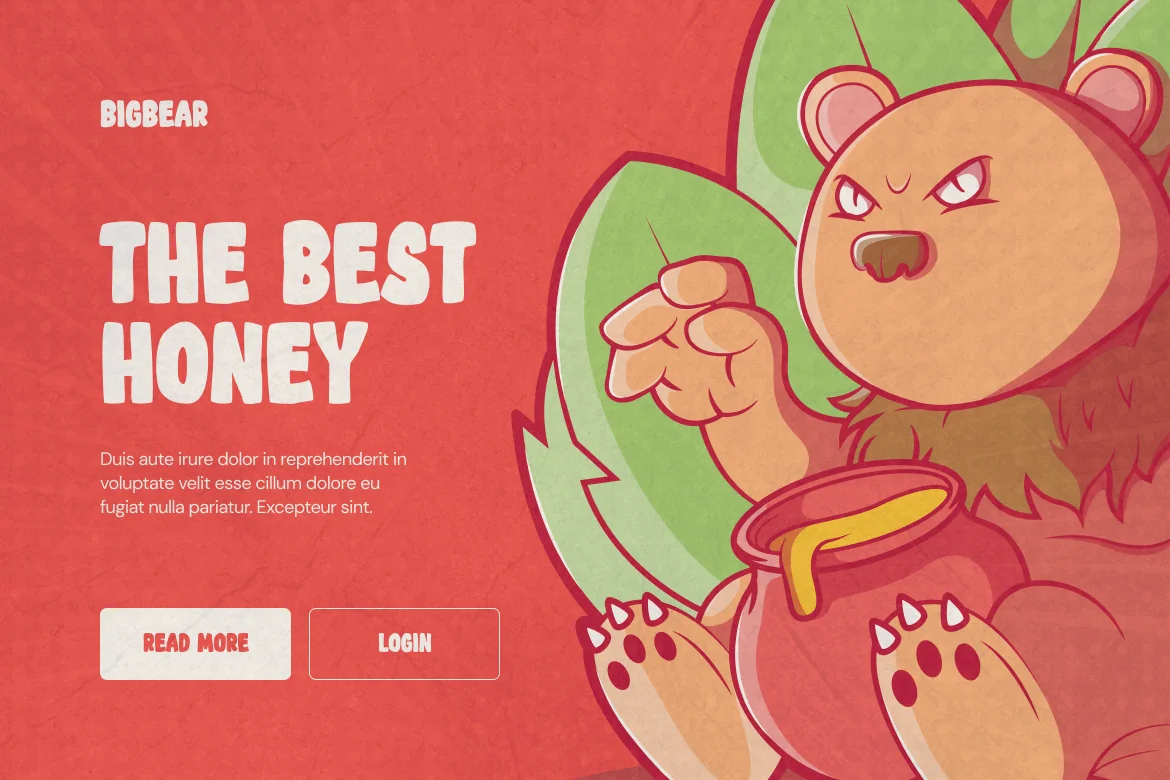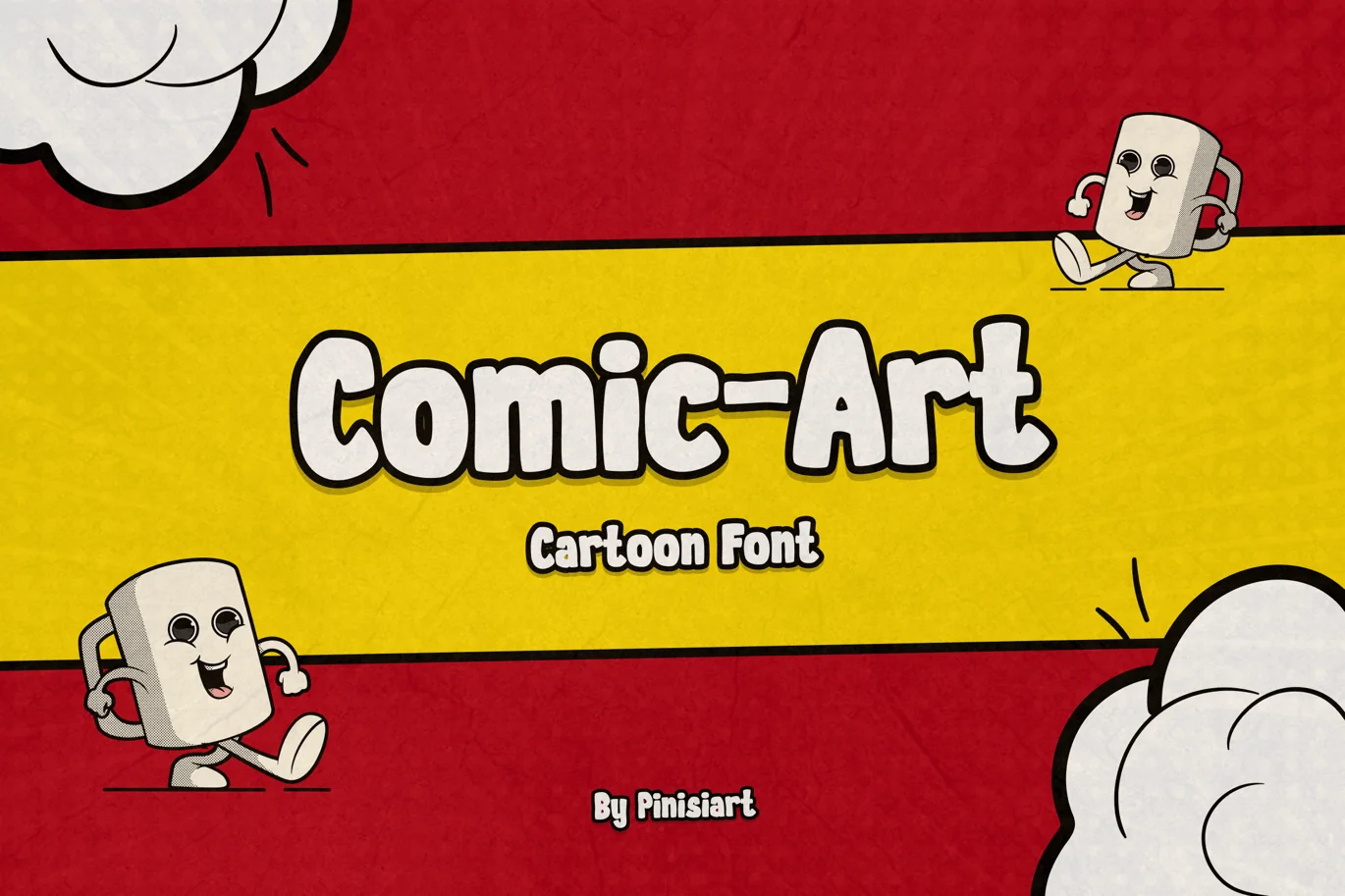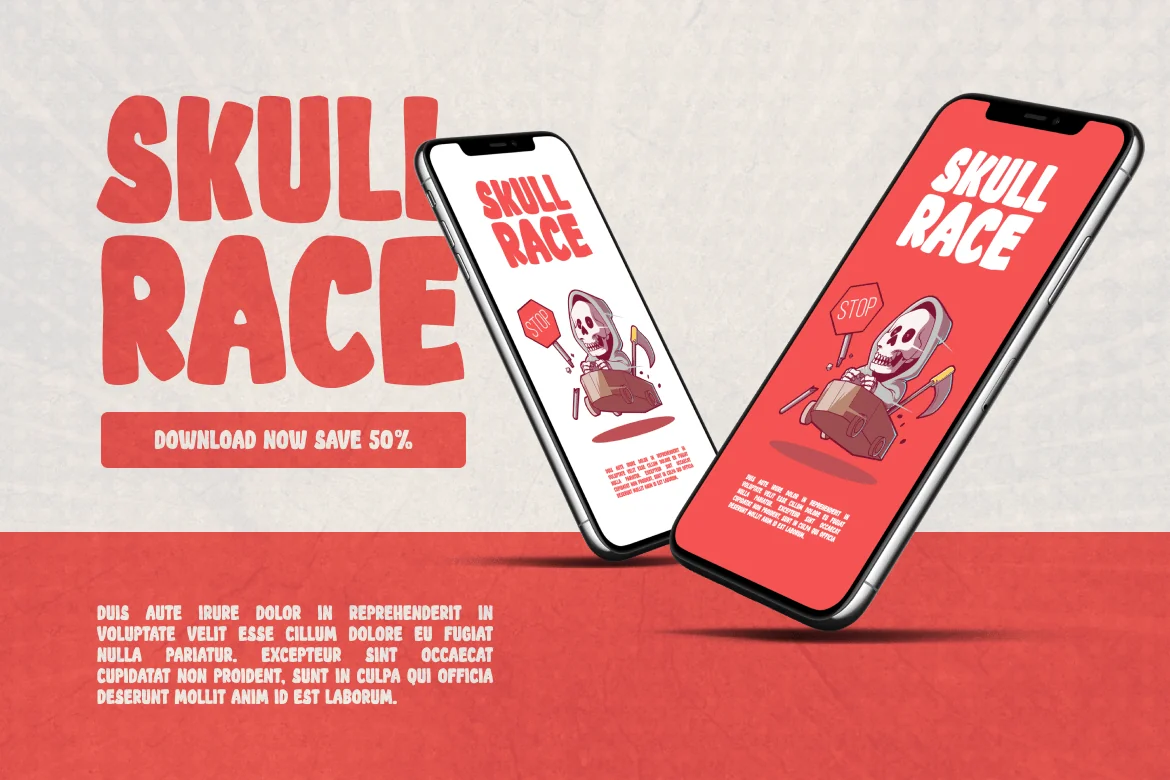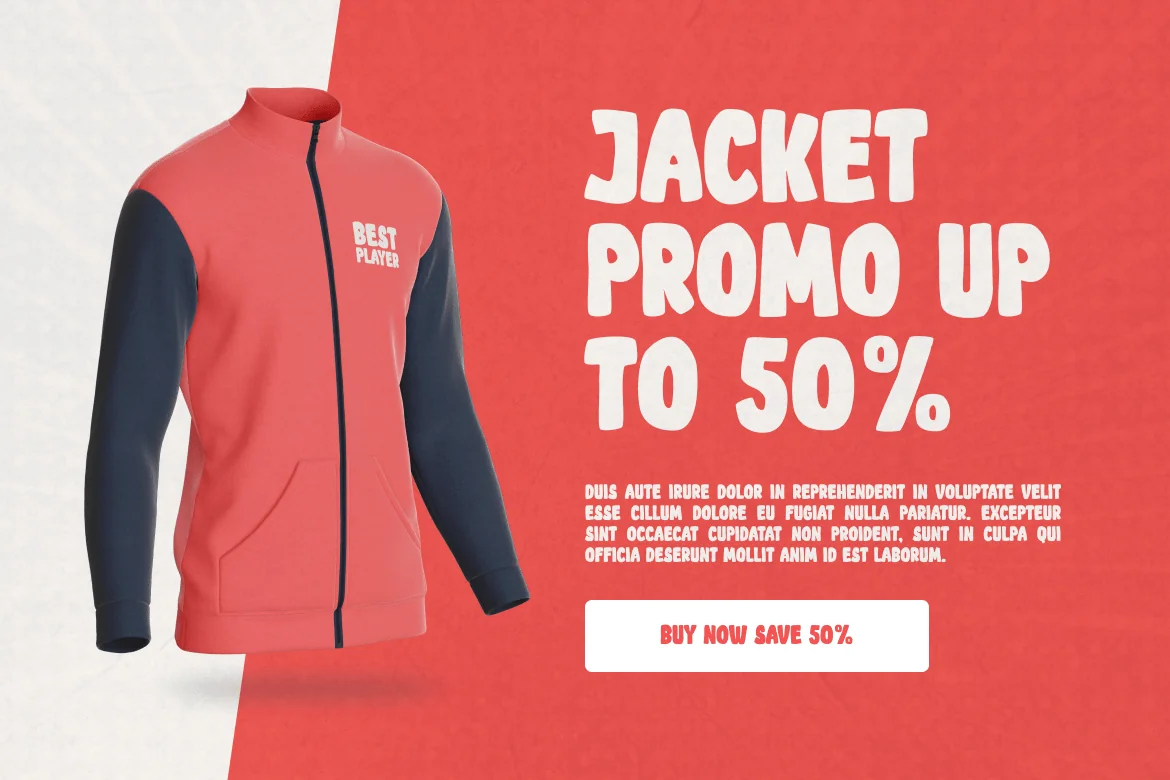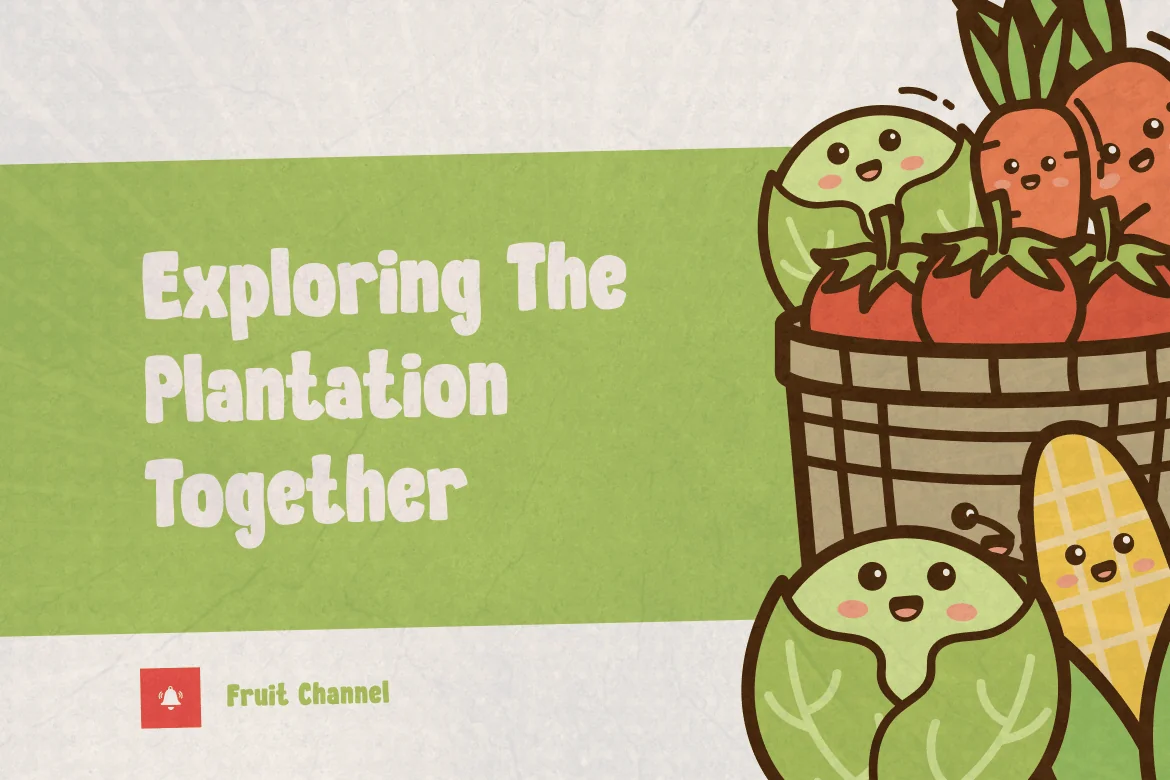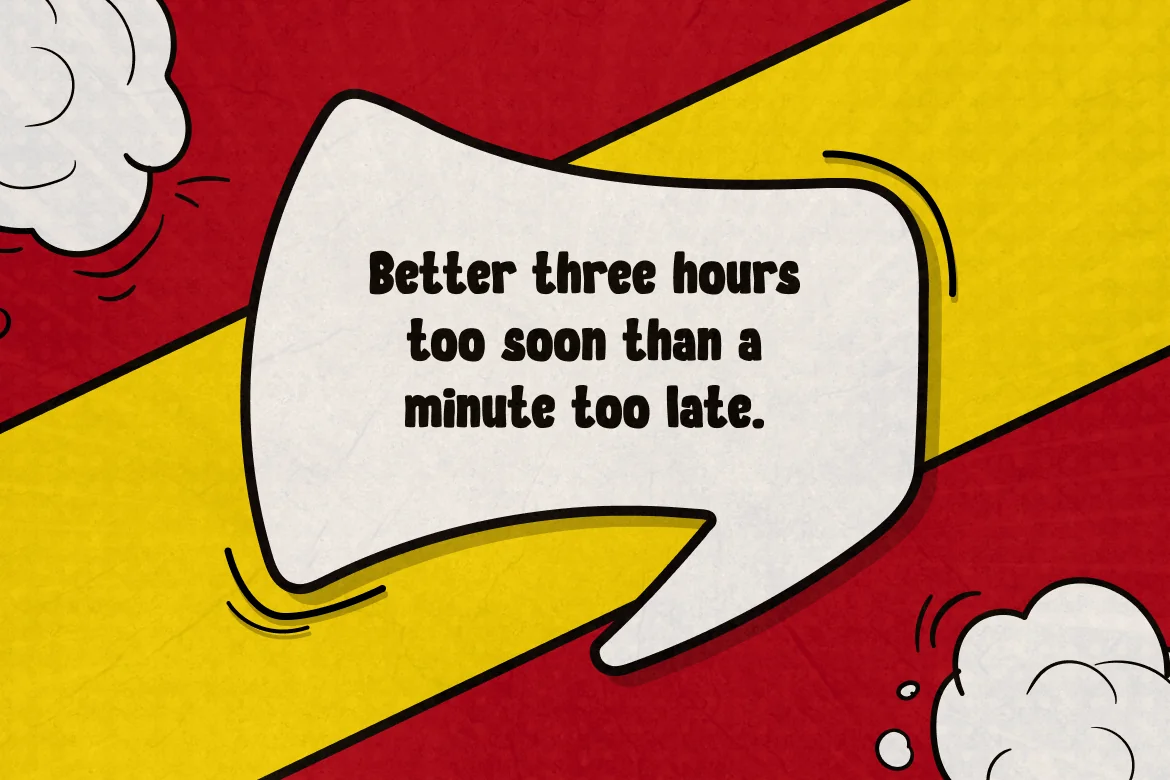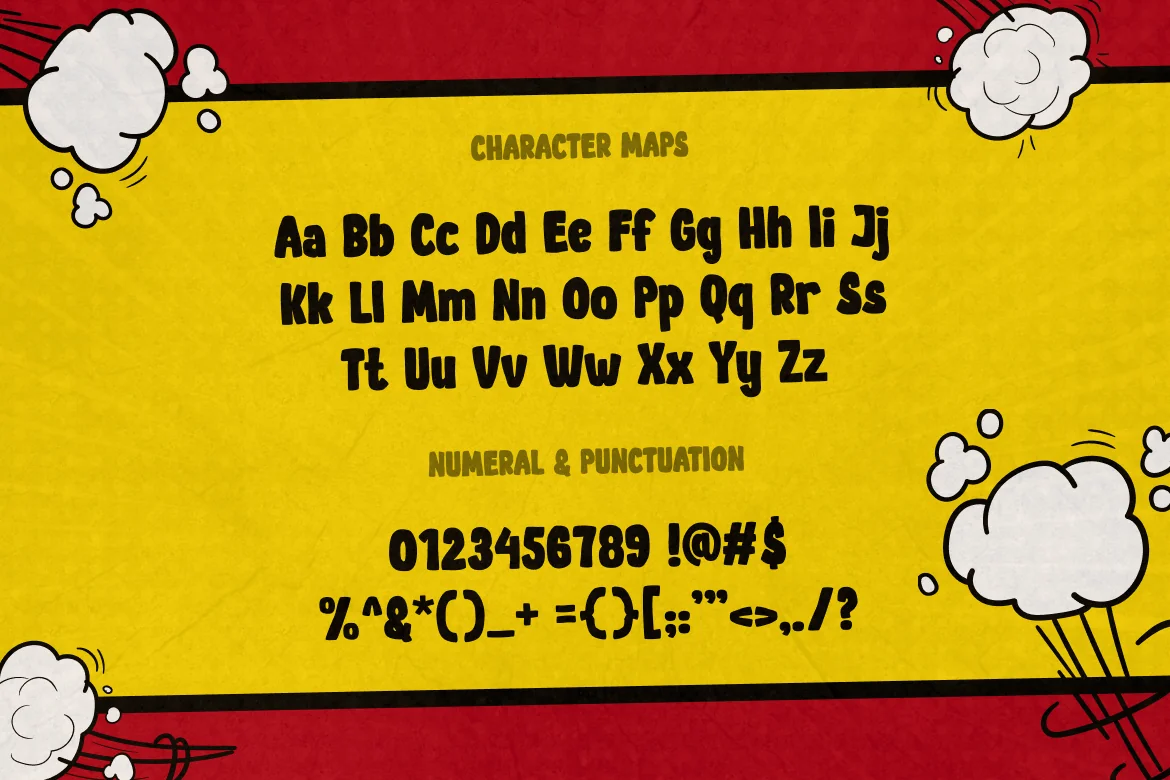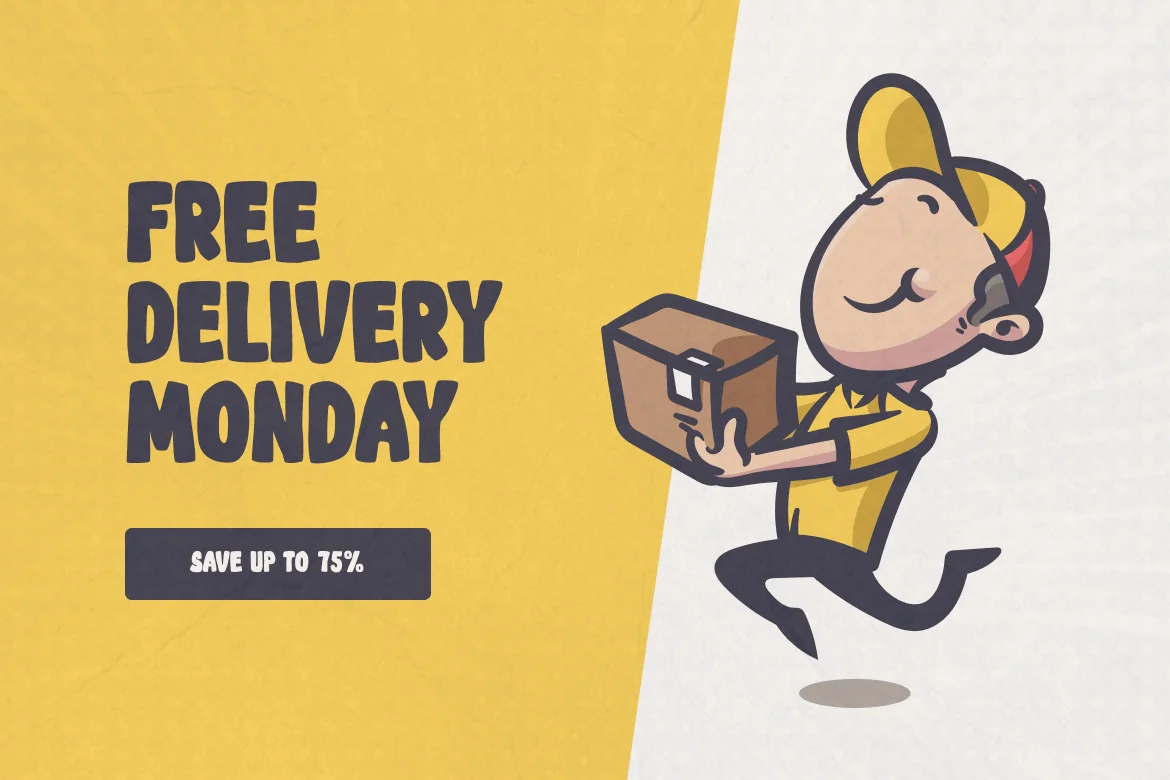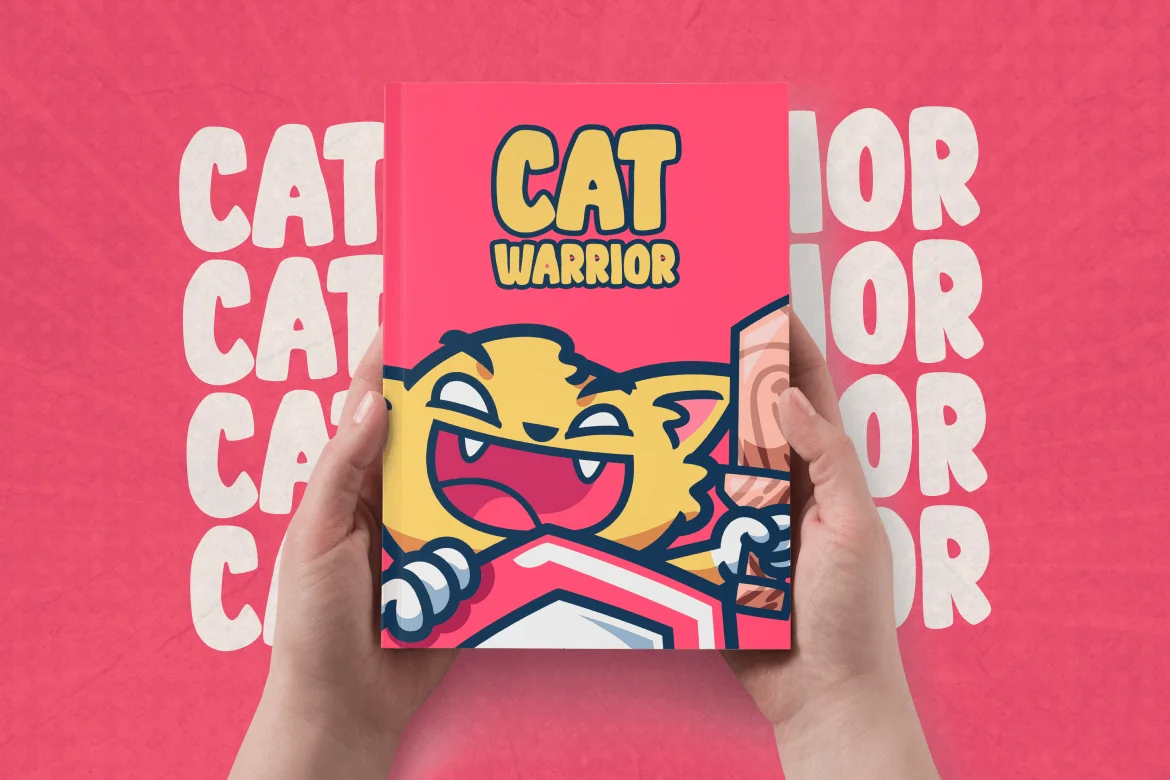
Comic Art – Cartoon Display Font
It has great read-ability and really making the comic feel greater than it already is.
Suit perfectly for encouraging kids themes books market, educational gaming poster, stationary, school supplies font, youtube covers, youtube thumbnails, social media page covers and so on…
- Basic Latin A-Z and a-z, Numbers, Punctuation